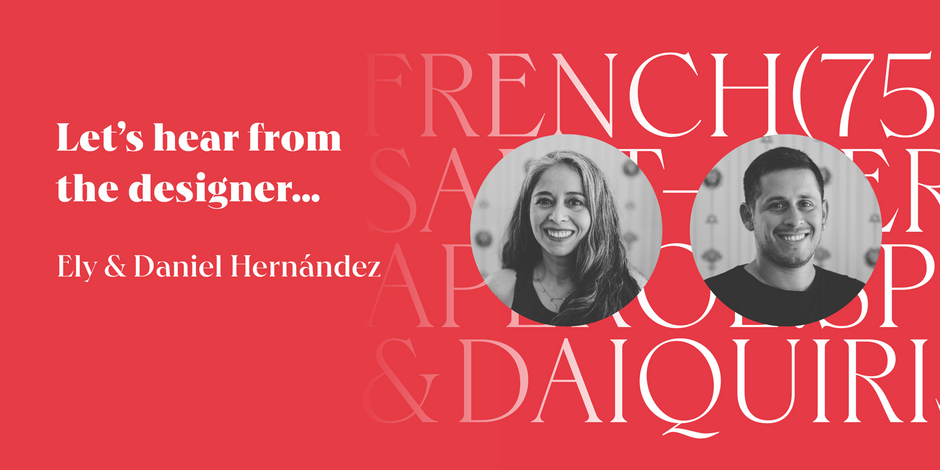
#6 Hernandez Bros by Latinotype
Q1: What should graphic communicators look for when choosing a typeface family for a specific project? What kind of typeface designs are best for pairing with your typeface?
Ans: The first thing is to know and understand why we need a font. Know if it’ll be a printed or digital project, if it will be used in a large or small size, if we need it for a continuous text or for short sentences, or even perhaps a word. This will help us decide what type of fonts we need, text or display, serif or non-serif, etc. Last but not least, we need to know what type of licenses will be necessary for our project, in order to be able to pay correctly. Being a very expressive font, in any case it must be accompanied by neutral fonts, hopefully sans serif, which allows the Hernández Bros font to shine and give it prominence.
Q2: What were your goals when designing the typeface? What is the one or two most important things graphic communicators should know about the typeface, or how will the family of fonts help them create better design?
Ans: The main objective of Hernández Bros was to create an elegant and modern font that followed the aesthetic aspects of current trends. Its drawings are based on the Bulfinch font found in the 1912 ATF catalog and combine classic features with geometric features in the case of alternative characters, allowing for a large number of possibilities when composing a word and even a paragraph.